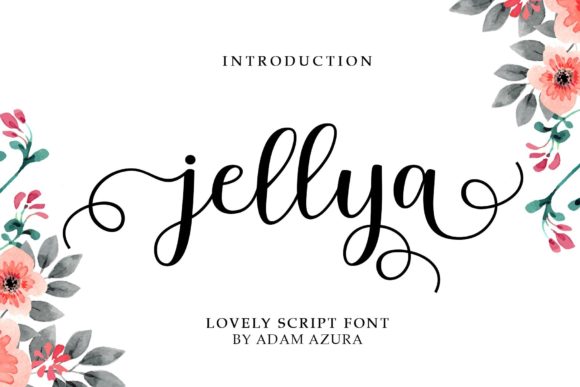
Jellya Script: More Than Just a Pretty Typeface
If you’ve spent any time browsing for a premium font lately, you know how overwhelming the sea of options can be. You want something with personality, but you also need versatility. You need a typeface that feels personal but remains legible across different mediums. This is exactly where Jellya Script enters the conversation. It strikes a rare balance between being charmingly whimsical and structurally elegant. It doesn’t just sit on the page; it performs. Whether you are designing a high-end brand identity or crafting a personal note, this script font offers a fluidity that feels almost hand-lettered, giving your projects a customized touch that standard corporate fonts simply cannot replicate.
The Aesthetic: Where Charm Meets Elegance
When we talk about the visual characteristics of Jellya Script, we are looking at a masterclass in balance. Often, handwritten fonts fall into two camps: they are either too messy to be professional, or they are so stiff they lose their human quality. Jellya avoids these pitfalls. The letterforms feature soft, rounded edges that flow into one another with a natural rhythm. There is a bouncy baseline here, but it is controlled. It isn’t chaotic; it’s musical.
The style leans towards a modern typography aesthetic, meaning it incorporates current design trends like thicker stroke weights and distinct ligatures while maintaining timeless readability. It feels equally charming and elegant. This duality makes it a powerhouse for display font usage. You want the headline to grab attention? Jellya does that. You want the sub-copy to feel approachable? It handles that, too. It carries a warmth that makes the viewer feel welcomed, which is a psychological trigger that marketers and brand strategists value highly.
Real-World Application: Where Jellya Script Truly Shines
Theory is great, but practical application is what matters. A font is essentially a tool, and a tool is only as good as the job it can do. Jellya Script is a workhorse across a surprising variety of creative fields. Because it is a creative font, it fits naturally into the world of wedding invitations and stationery. The fluidity of the strokes mimics the calligraphy traditionally associated with formal events, but with a modern, accessible twist.
However, don't pigeonhole it as just a script font for stationery. It is incredibly effective in packaging design. Imagine a coffee bag label, a boutique candle, or a bakery box. Jellya Script adds that artisanal, "made with care" vibe instantly. For small business owners and entrepreneurs, this is gold. It helps build a brand identity that feels human and approachable without sacrificing professionalism.
Here are a few specific scenarios where this typeface excels:
- Logo Design: It creates memorable wordmarks, especially for lifestyle, beauty, or food brands.
- Social Media Graphics: On platforms like Instagram or Pinterest, where scrolling speed is fast, a distinct display font stops the thumb. Jellya’s high contrast makes it pop on mobile screens.
- Editorial Design: Use it for pull quotes or section headers in magazines and blogs to break up the monotony of standard body text.
- Thank You Cards: For e-commerce businesses, adding a personal touch to the post-purchase experience helps with customer retention.
Technical Mastery: PUA Encoding and Accessibility
You don't need to be a typography expert to access the fancy tails or the unique letter connections. Whether you are using Adobe Illustrator, Photoshop, Canva, or even Microsoft Word, you can access the full character set. This level of accessibility ensures that you get the full value of the premium font immediately. It removes the technical barrier between your vision and the final design, allowing you to focus on creativity rather than troubleshooting software compatibility.
Strategic Pairing and Brand Consistency
No font is an island. To achieve a polished look, you usually need a strong font pairing. Because Jellya Script is so expressive, it pairs best with something that steps back and lets it lead. A clean sans serif font is often the best companion. The geometric simplicity of a sans serif provides a structural anchor that grounds the fluid nature of the script. Alternatively, a classic serif font can create a sophisticated, high-fashion contrast.
When evaluating your project fit, consider the tone of your message. If you are aiming for high-energy, youthful branding, Jellya Script provides that movement. If you are looking for a romantic, soft aesthetic, the elegant curves of the typeface handle that effortlessly. Consistency is key in brand identity. By using Jellya Script consistently for your headers or accent text across your web design, print materials, and social media graphics, you create a cohesive visual language that makes your brand instantly recognizable.
Conclusion
In the crowded world of modern typography, finding a font that feels both personal and professional is rare. Jellya Script manages to bridge that gap beautifully. It offers the charm of a handwritten font with the reliability of a professional typeface. Whether you are a blogger looking to elevate your graphics, a marketer aiming for better engagement, or a hobbyist creating something special for a loved one, Jellya provides the tools to make your vision a reality. It isn’t just about writing words; it’s about giving those words a voice that resonates with your audience.